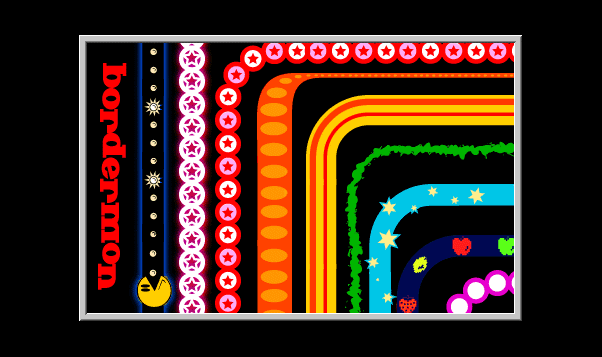
Bordermon contains TWELVE typable border designs you can use to frame any size document or layout. Fontalicious Classic fonts have been regenerated in OpenType (postscript) format from the original font files created by Fontalicious. No alterations or enhancements have been made.